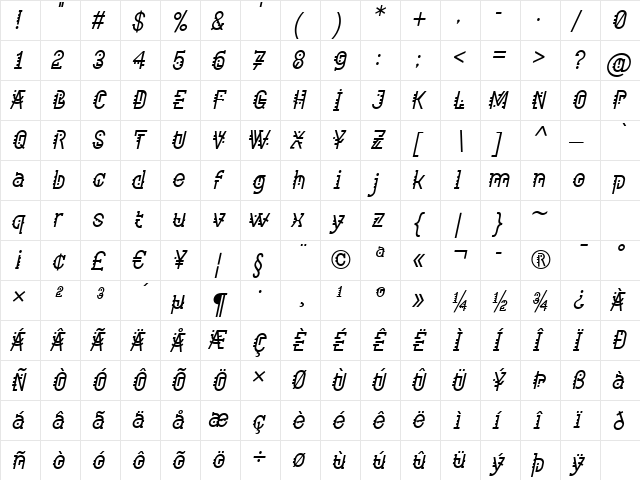
Component Italic
| Copyright | COMPONENT ITALIC (v 1.0) by Keith Bates 012 https://www.k-type.com Component evokes the aesthetics of machine-readable matrix barcodes like QR and Aztec codes, but it could just as easily invoke ancient rituals from a lost civilization. |
Design Context for Component Typeface
Component takes a measured approach to typography — its balanced proportions and neutral character make it a reliable workhorse for both digital and print work. The dynamic lean of this cut emphasises speed and emphasis in any layout.